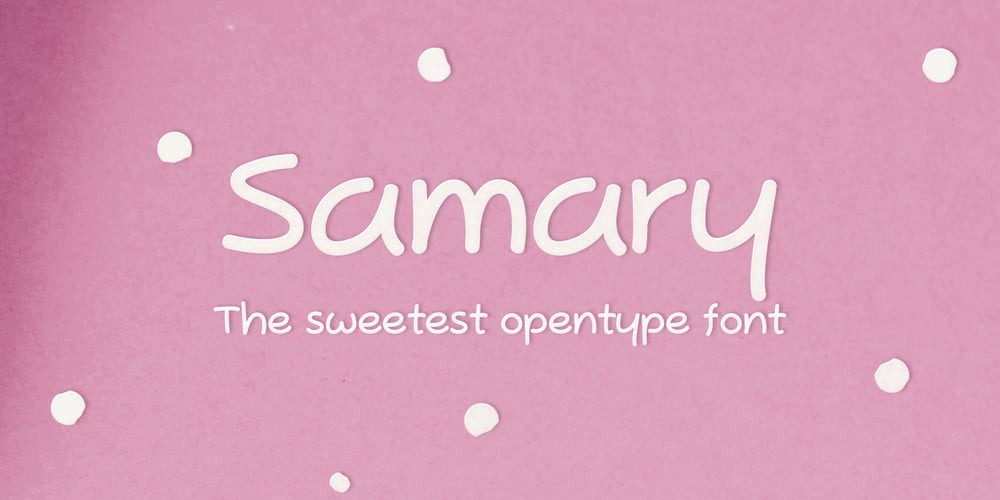
Samary Font Family was designed by Alexis Carrillo and published by Aisiv. Samary contains 1 styles and family package options. The Samary typeface is the perfect font for a cute, lovely, and adorable design; it won’t let you down! Perfect for gift cards, kids shirts, birthday cards, over cakes, game design, you name it! It contains Latin extended characters which are suitable for English, German, Spanish, Icelandic, Swedish, Finnish and even Norwegian.